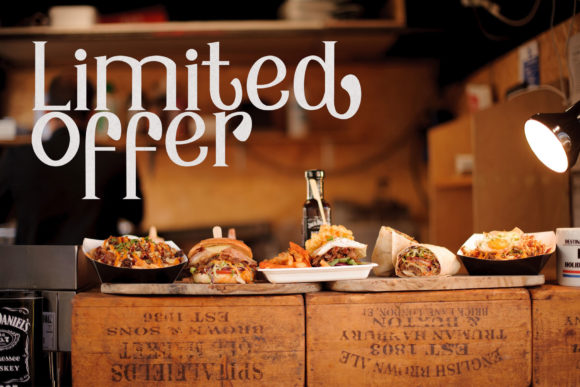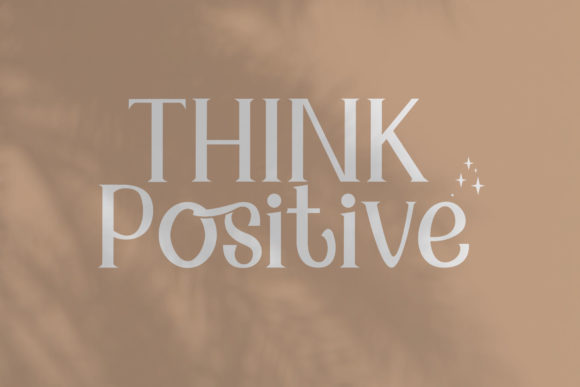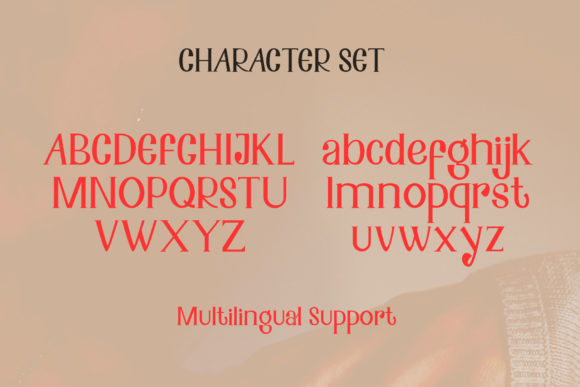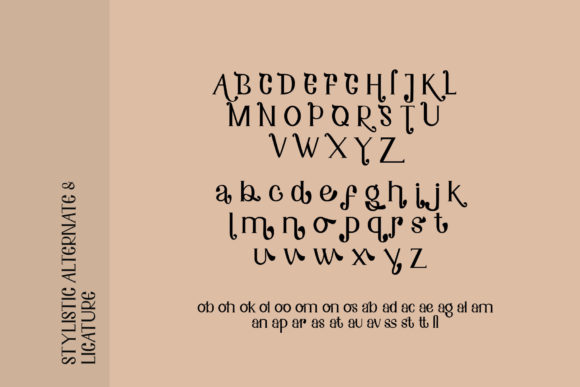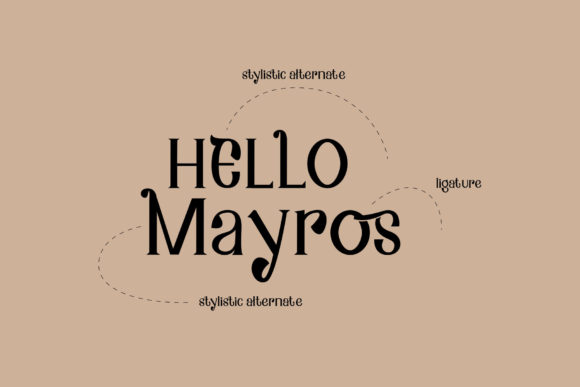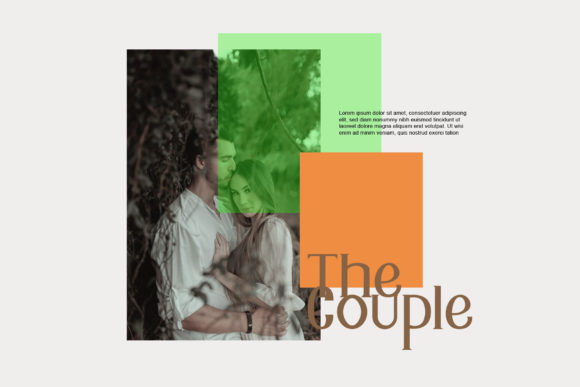
Introduction to Mayros Font
Have you ever been working on a creative project, pouring your heart and soul into it, and then suddenly, you stumble upon the perfect font that brings it all together? For designers, that ‘aha’ moment is priceless. It’s the difference between a good design and a great one. And that’s exactly what the Mayros Font can do for your next big idea.
As a designer, you know that the right font can make or break your design. That’s why we’re excited to introduce you to the Mayros Font, a versatile, cool, and beautiful serif font that’s perfect for any creative project. With its high-quality design and transparent background, this font is a game-changer for any design resource.
Key Features of Mayros Font
- Transparent background: This font allows for a seamless integration with any design, making it ideal for creative projects that require a high level of customization.
- High-quality design: Mayros Font is crafted with precision and attention to detail, ensuring a professional look in any design resource.
- Resolution-independent: This font is designed to be resolution-independent, making it perfect for use in both print and digital designs.
- Unique characteristics: Mayros Font features a unique blend of modern and vintage elements, making it a standout choice for designers looking to add some personality to their creative project.
Honest Review: Mayros Font
As a designer, I’m always on the lookout for high-quality design resources to elevate my creative projects. Recently, I stumbled upon the Mayros Font, and I’m excited to share my honest review with you.
- ✨ Beautiful and unique design style that adds a touch of elegance to any project
- ✨ High-quality font that’s perfect for both digital and print designs
- ⚠️ Limited character set, which may not be suitable for projects that require a wide range of languages
- ⚠️ No transparent background option, which can be a bit restrictive for designers who want more creative control
Overall, I’m impressed with the Mayros Font’s design and quality. While it may have some limitations, it’s still a valuable addition to any designer’s resource library. If you’re looking for a beautiful and high-quality font to enhance your creative project, I’d definitely recommend giving the Mayros Font a try.
How to Use Mayros Font
The Mayros Font is a high-quality design resource perfect for any creative project. With its clean and modern aesthetic, this font is ideal for designers and non-designers alike. To get the most out of the Mayros Font, follow these steps:
Tips for Getting the Most Out of the Mayros Font
To get the most out of the Mayros Font, use it with a transparent background to create a modern and sleek design. Experiment with different font sizes and colors to add depth and interest to your design.
The Mayros Font is perfect for a variety of creative projects, including logos, business cards, brochures, and social media graphics. Its clean and modern aesthetic makes it ideal for any design project that requires a professional and sophisticated look.
Q: Is the Mayros Font suitable for high-quality print materials?
Yes, the Mayros Font is designed to be high-quality and suitable for print materials. It features crisp lines, clear typography, and a high level of detail, making it perfect for business cards, brochures, and other marketing materials.